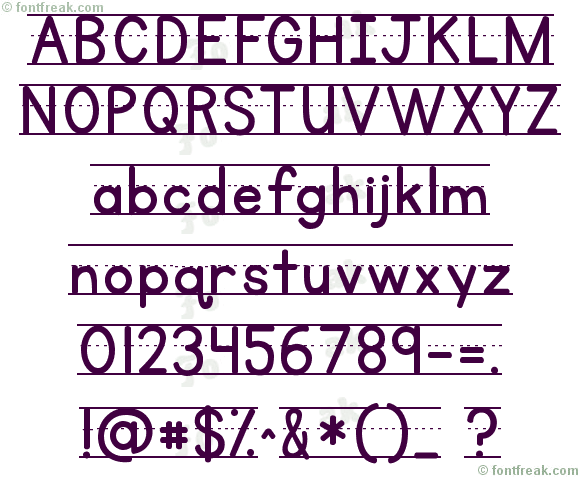
KG Primary Lined NOSPACE
About KG Primary Lined NOSPACE
KG Primary Lined NOSPACE is a unique display font designed by Kimberly Geswein, characterized by its playful and modern aesthetic. This font falls into the category of decorative typefaces, featuring a distinctive lined style that adds a creative twist to any project. The stroke weight is consistent, providing a solid visual presence while maintaining a lighthearted feel. The absence of space between letters creates a cohesive flow that enhances readability and makes it ideal for various applications.
The visual characteristics of KG Primary Lined NOSPACE include its clean lines and uniform height, which lend a contemporary touch to traditional typography. The decorative elements, such as the playful line accents above and below the letters, inject personality into the text without overwhelming the design. This balance makes it adaptable for a range of uses, including eye-catching wedding invitations, vibrant movie posters, engaging restaurant menus, and dynamic social media graphics. Its versatility extends to branding projects where a lively and approachable image is desired.
The target audience for this font includes graphic designers, small business owners, and content creators looking to infuse their work with a sense of creativity and fun. Whether you're designing for print or digital media, KG Primary Lined NOSPACE offers a fresh alternative to conventional typefaces.
What truly sets the KG Primary Lined NOSPACE font apart is its ability to convey a playful yet professional tone. This makes it an excellent choice for anyone seeking to attract attention while maintaining clarity in their messaging. With a KG Primary Lined NOSPACE font free download available, you can elevate your design projects with this unique typeface that effortlessly combines style and functionality.